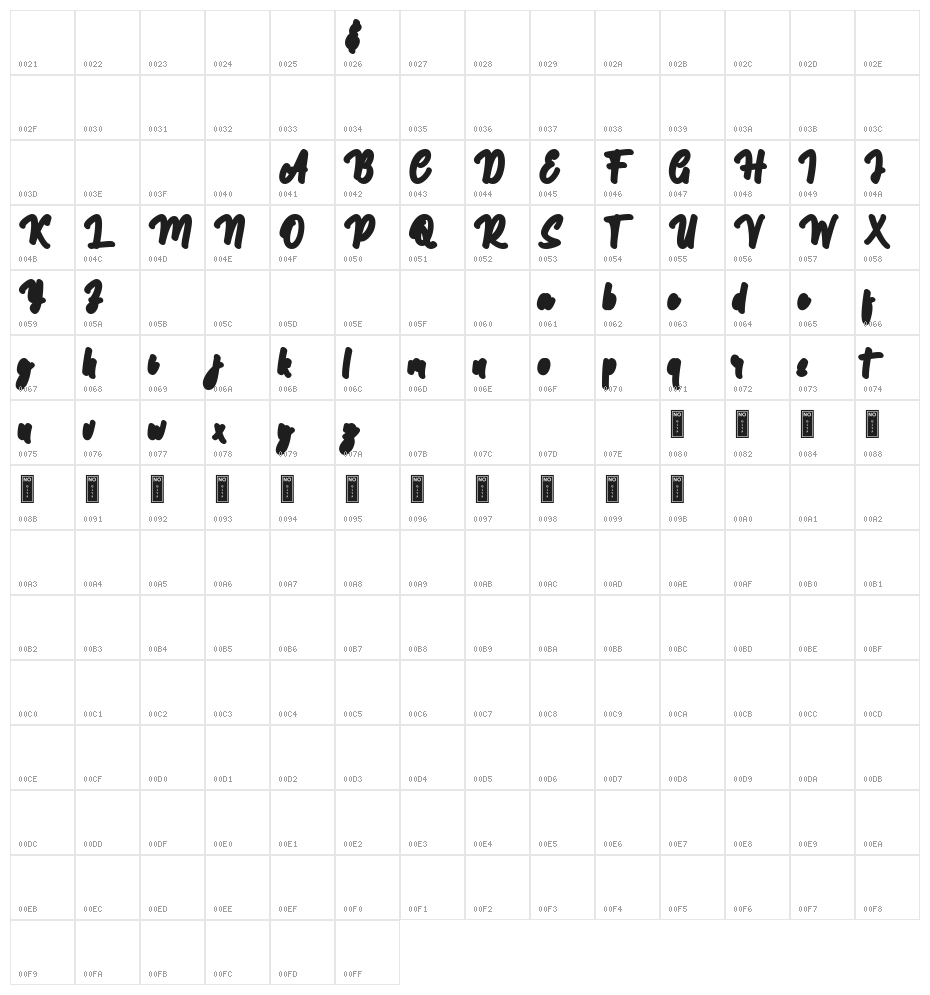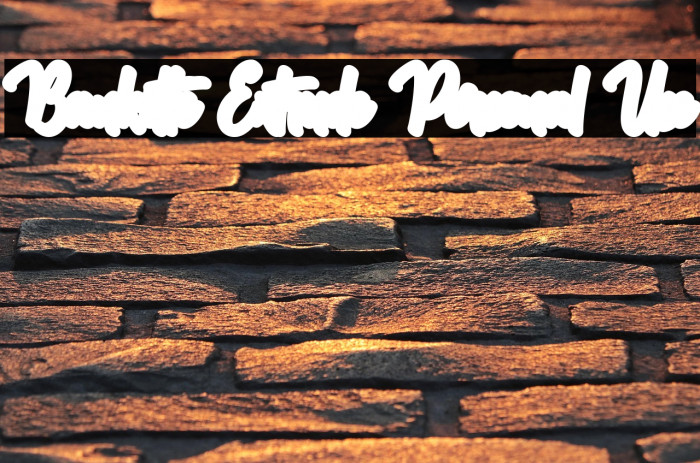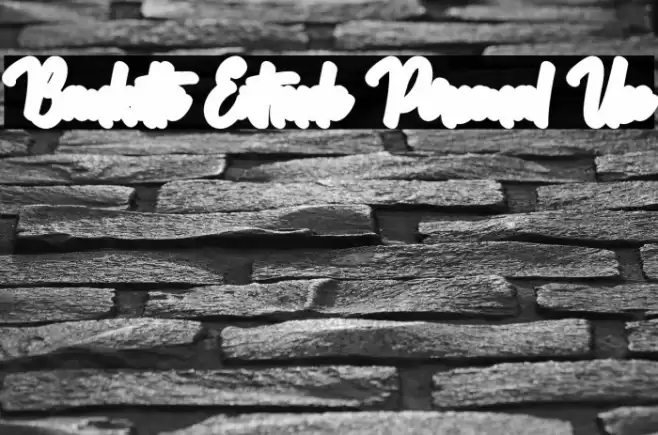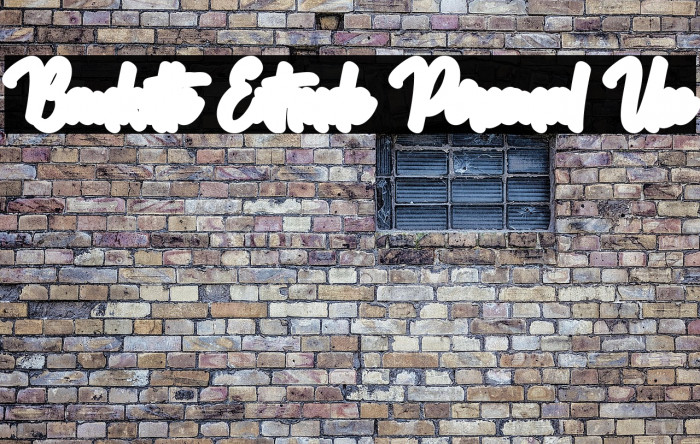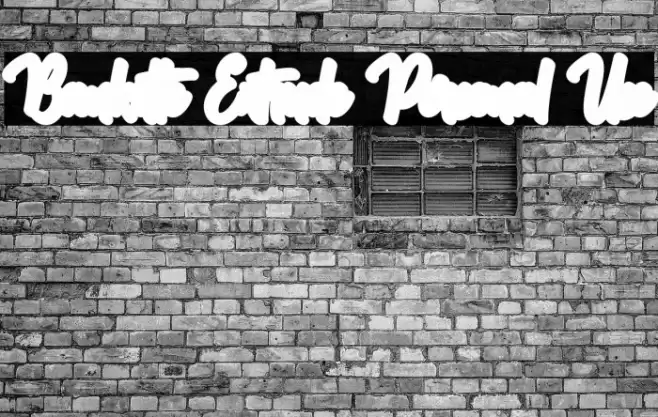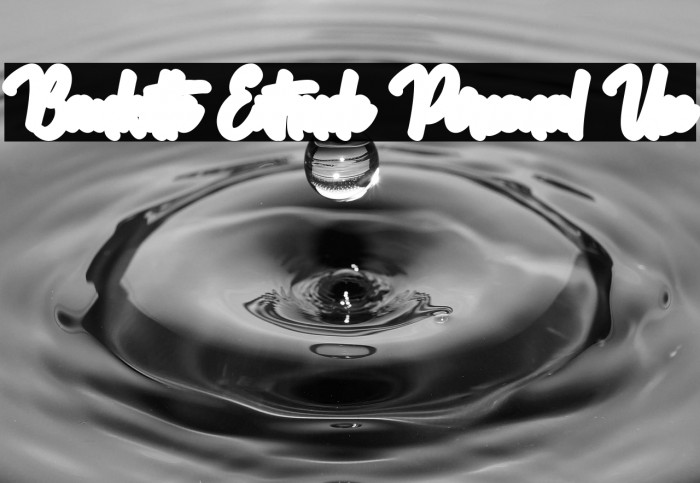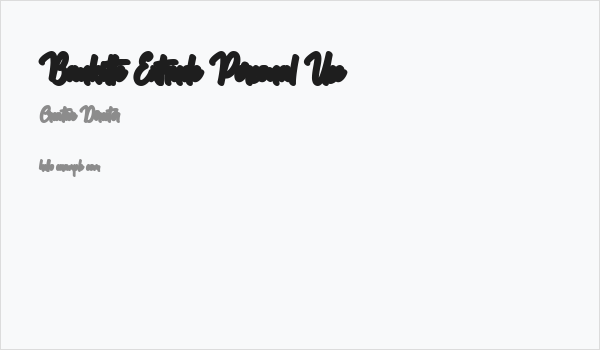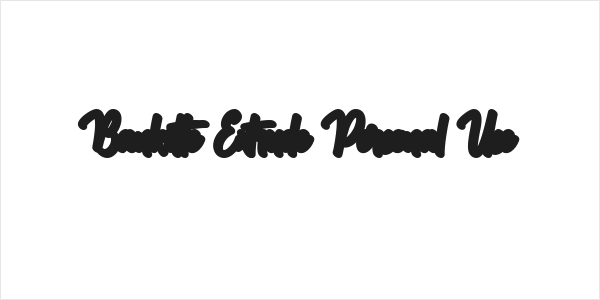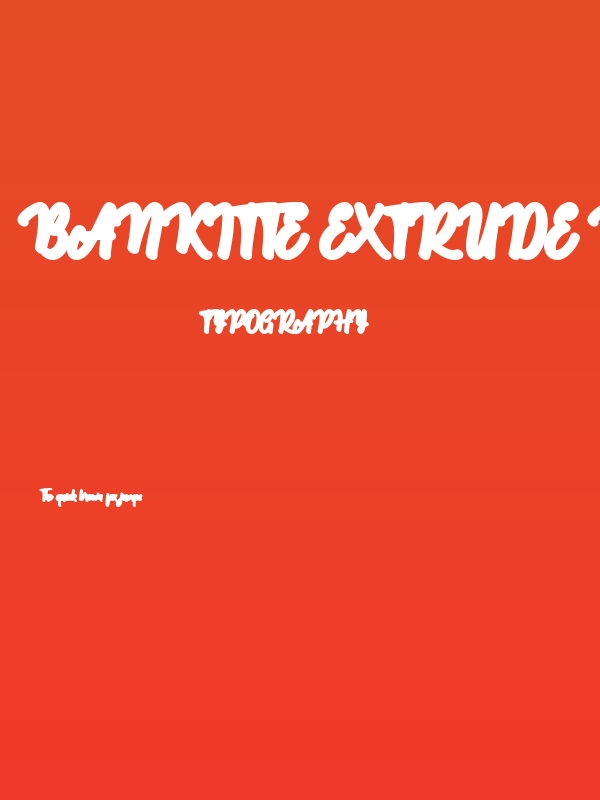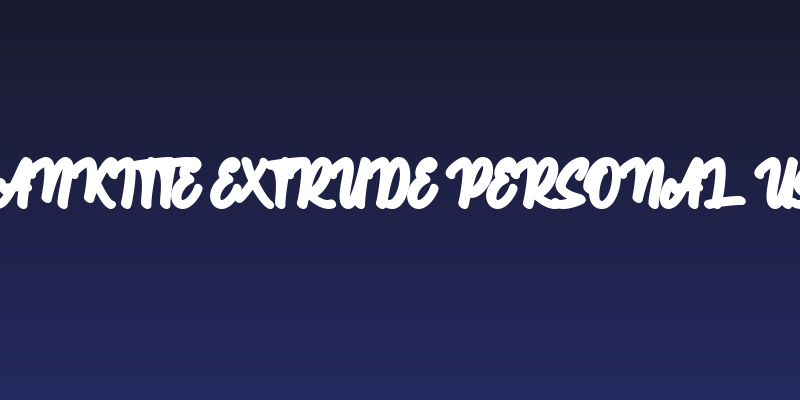
Bankitte Extrude Personal Use Font
Bankitte Extrude Personal Use Description
This font features a bold, playful script style with a strong presence. The letters are interconnected, creating a fluid and dynamic appearance. The strokes are thick and consistent, giving a sense of weight and stability. The uppercase and lowercase letters maintain a cohesive look, with rounded edges and a slight slant that adds to the casual, handwritten feel. The numbers and special characters follow the same design principles, ensuring uniformity across all glyphs. This font is ideal for projects that require a personal touch or a sense of fun and creativity.